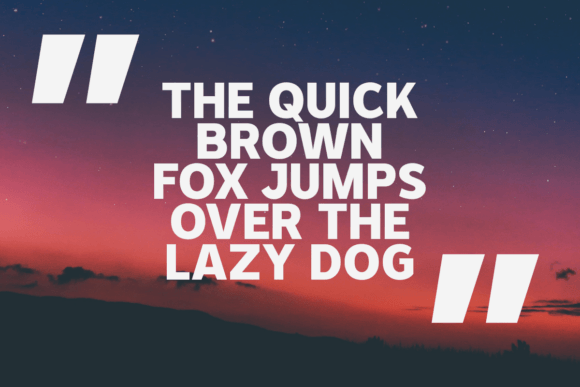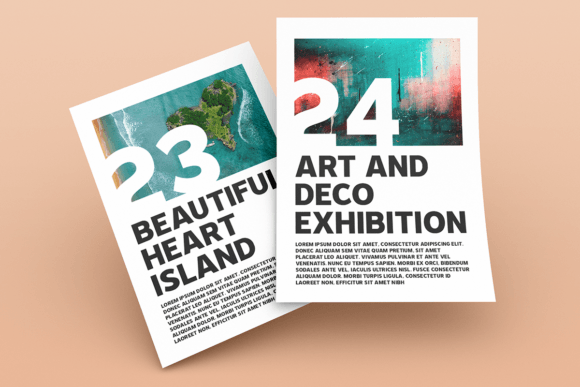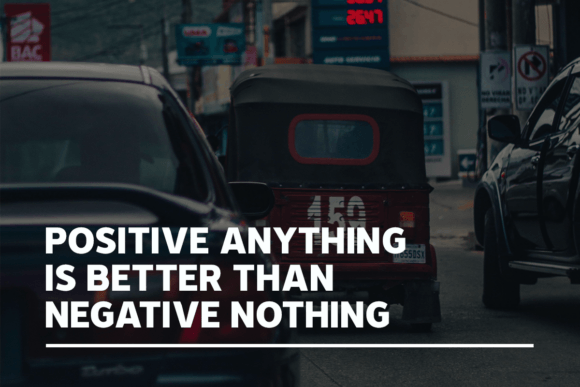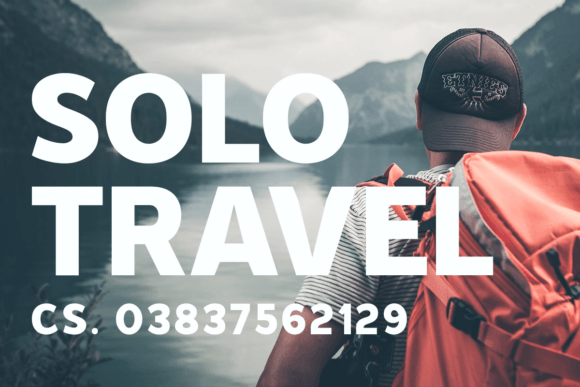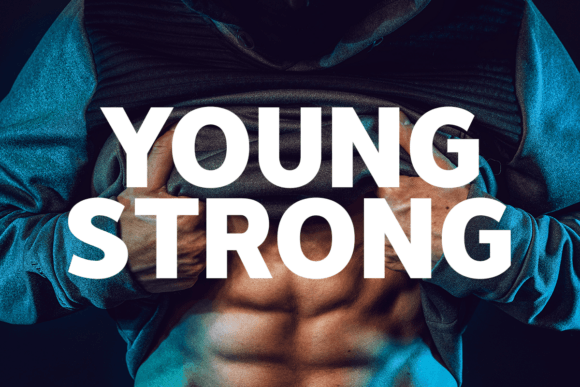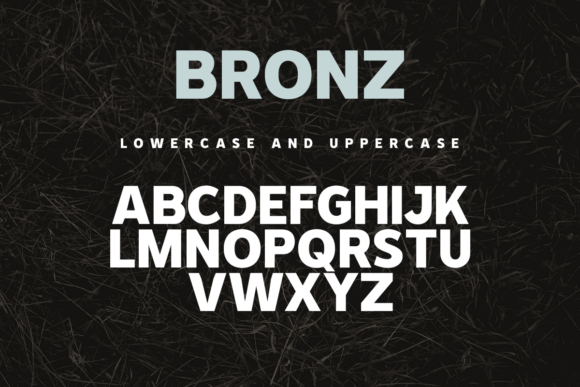
Bronz Font: Elevate Your Design with a Modern, Versatile Typeface
In the world of typography, a well-chosen font can make all the difference in the success of a design project. For designers and crafters seeking a clean, modern look, Bronz Sans Serif Font is an excellent choice. This sleek, geometric design offers a timeless, versatile aesthetic that’s perfect for tech, corporate branding, websites, and minimalist designs.
Key Features of Bronz Font
- Clean and Modern Design: Bronz Font boasts a sleek, geometric design that exudes professionalism and clarity.
- Versatile Aesthetic: Its modern look makes it suitable for a wide range of applications, from tech and corporate branding to websites and minimalist designs.
- PUA Encoding: Bronz Font is PUA (Private Use Area) encoded, allowing easy access to all glyphs and swashes, making it a delight to use for designers.
The Benefits of Using Bronz Font
Bronz Font offers several benefits that make it an attractive choice for designers and crafters. Its clean lines and geometric shapes provide a crisp, modern look that’s both visually appealing and highly legible. This font is designed to convey professionalism and sophistication, making it perfect for:
- Corporate Branding: Establish a strong brand identity with a font that communicates stability and reliability.
- Web Design: Enhance the user experience with a font that’s optimized for digital platforms.
- Minimalist Designs: Add a touch of modern elegance to your minimalist designs with a font that’s simple yet impactful.
Why PUA Encoding Matters
PUA encoding is a feature that sets Bronz Font apart from other typefaces. This encoding allows designers to access a wide range of glyphs and swashes, which can be used to add creative flair to designs. With PUA encoding, you can:
- Easily Access Alternate Characters: Switch between different glyphs and swashes to add visual interest to your designs.
- Enhance Typography: Use a variety of ligatures, ornaments, and other typographic elements to create unique and engaging text.
Design Applications for Bronz Font
Bronz Font’s versatility makes it suitable for a wide range of design applications, including:
- Digital Platforms: Use Bronz Font for websites, mobile apps, and social media graphics to create a cohesive brand image.
- Print Materials: Apply Bronz Font to business cards, brochures, and posters to add a touch of modern sophistication.
- Crafting and DIY Projects: Incorporate Bronz Font into your crafting and DIY projects, such as handmade cards, invitations, and signage.
Tips for Using Bronz Font Effectively
To get the most out of Bronz Font, consider the following tips:
- Pair with Complementary Fonts: Combine Bronz Font with other fonts to create a harmonious and visually appealing typography.
- Experiment with Glyphs and Swashes: Take advantage of PUA encoding to add creative flourishes to your designs.
- Adjust Font Sizes and Weights: Use different font sizes and weights to create visual hierarchy and emphasize key information.
Bronz Sans Serif Font is a versatile and modern typeface that’s perfect for designers and crafters seeking a clean, professional look. With its sleek design, PUA encoding, and wide range of applications, Bronz Font is an excellent choice for anyone looking to elevate their designs. Whether you’re working on a corporate branding project, website, or crafting and DIY project, Bronz Font is sure to deliver a timeless, sophisticated aesthetic.